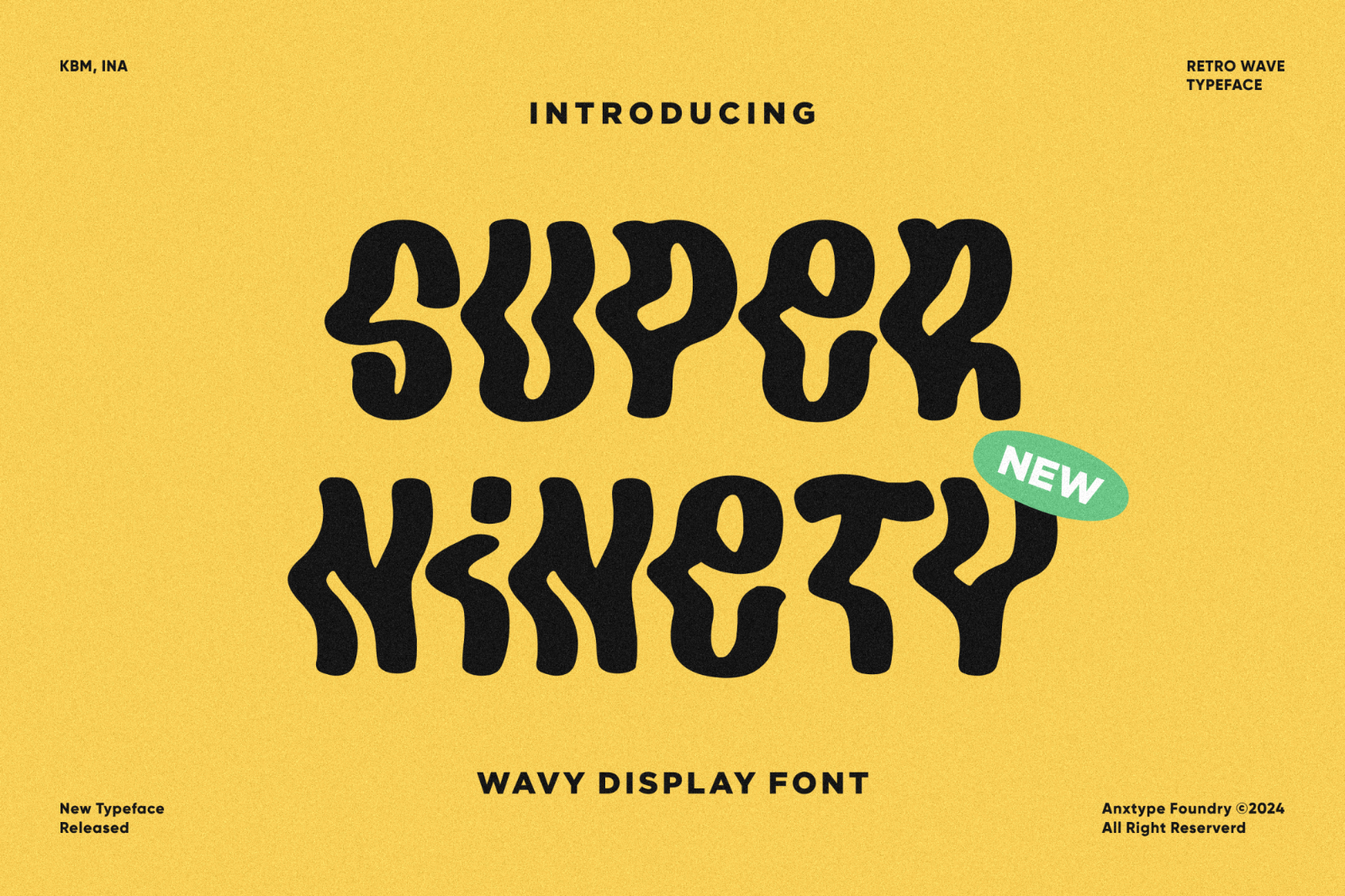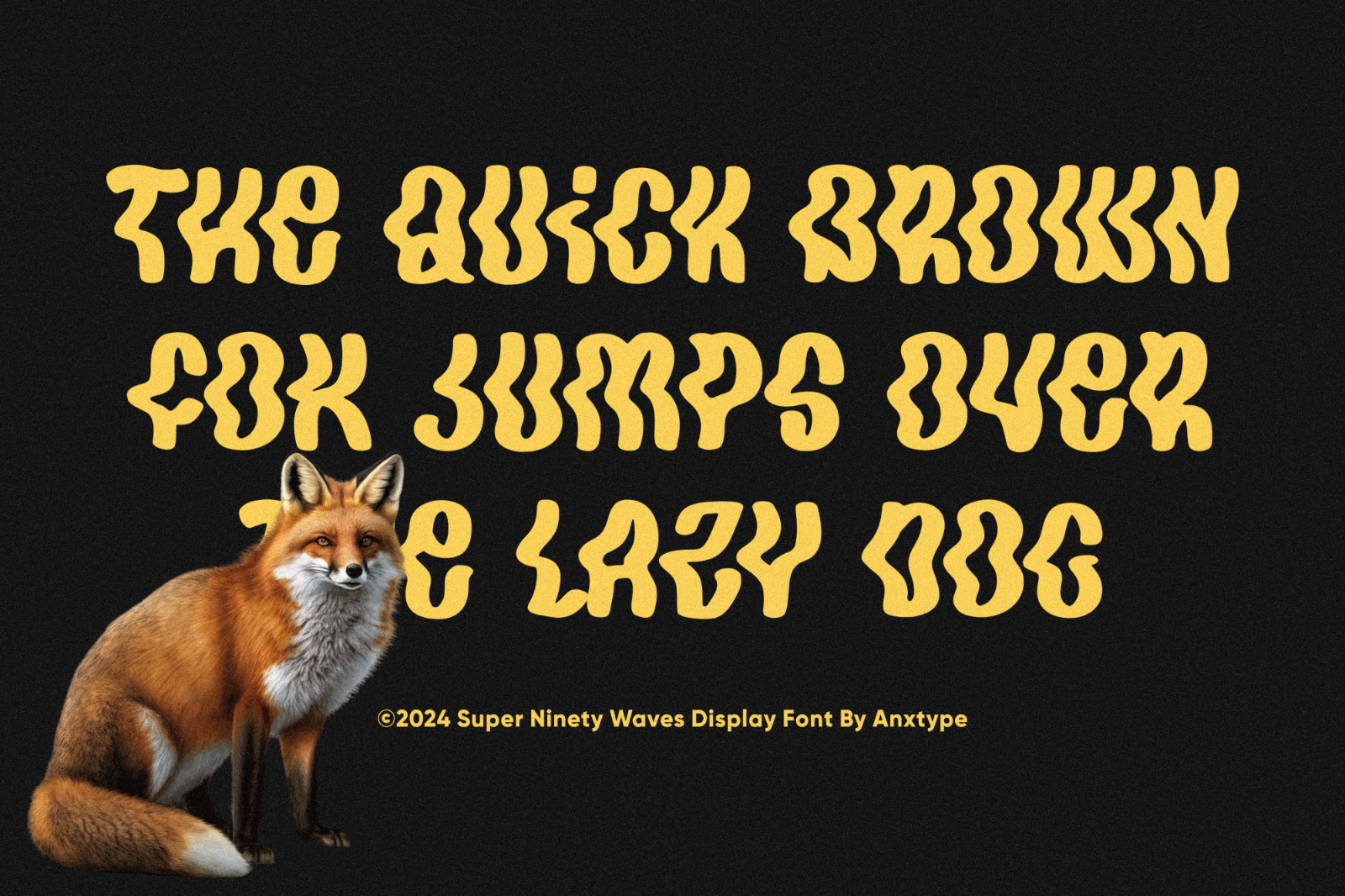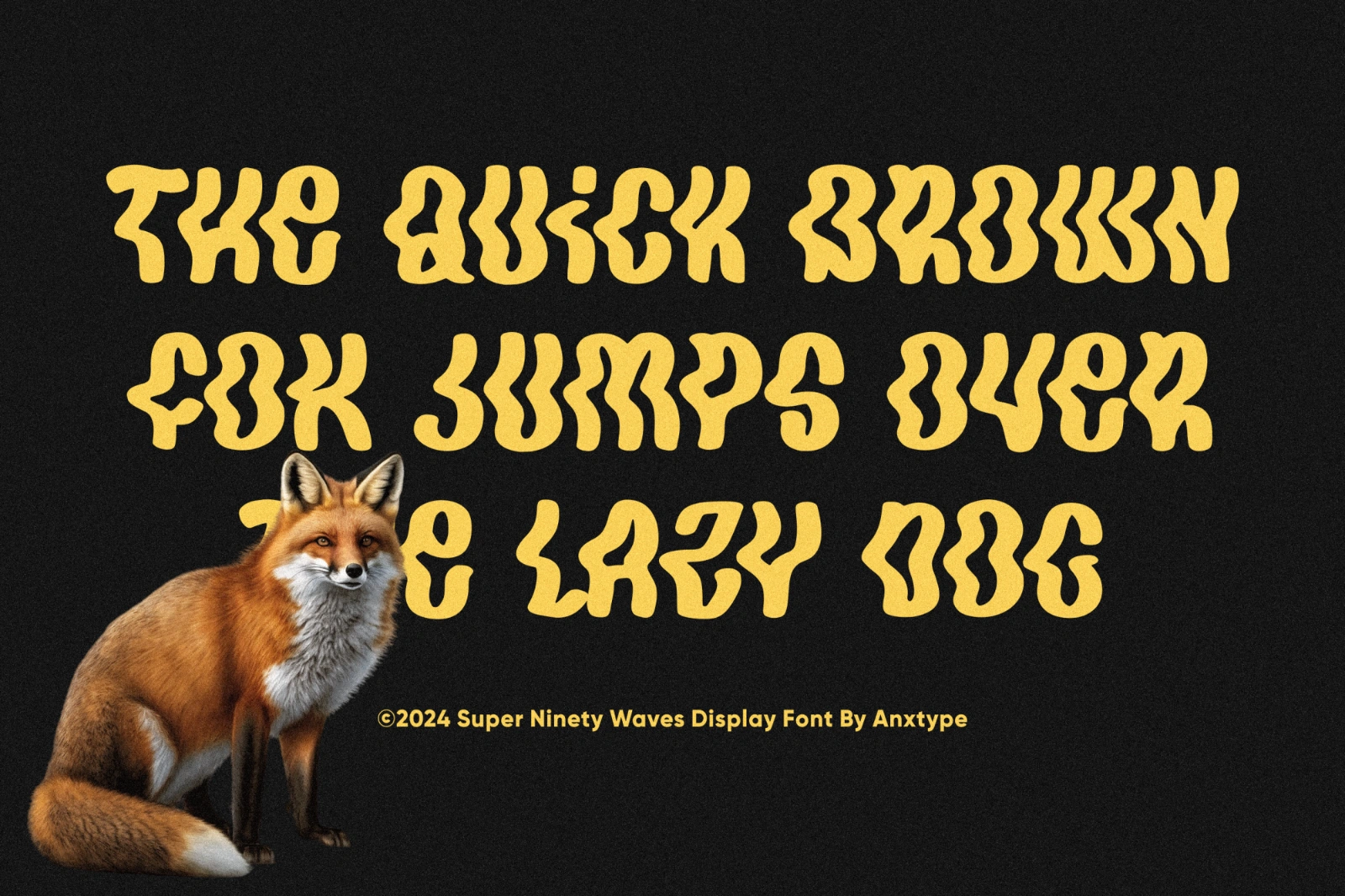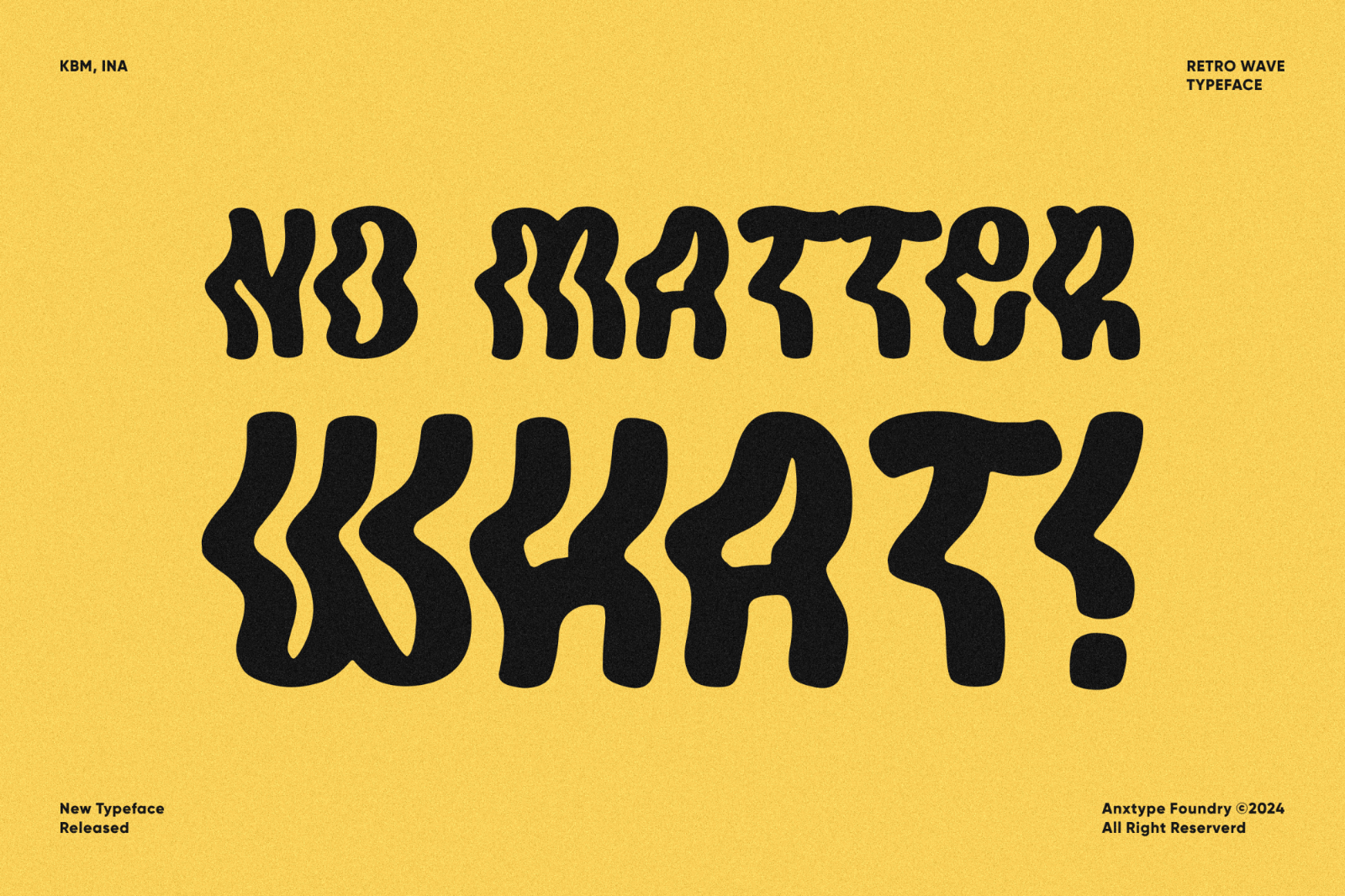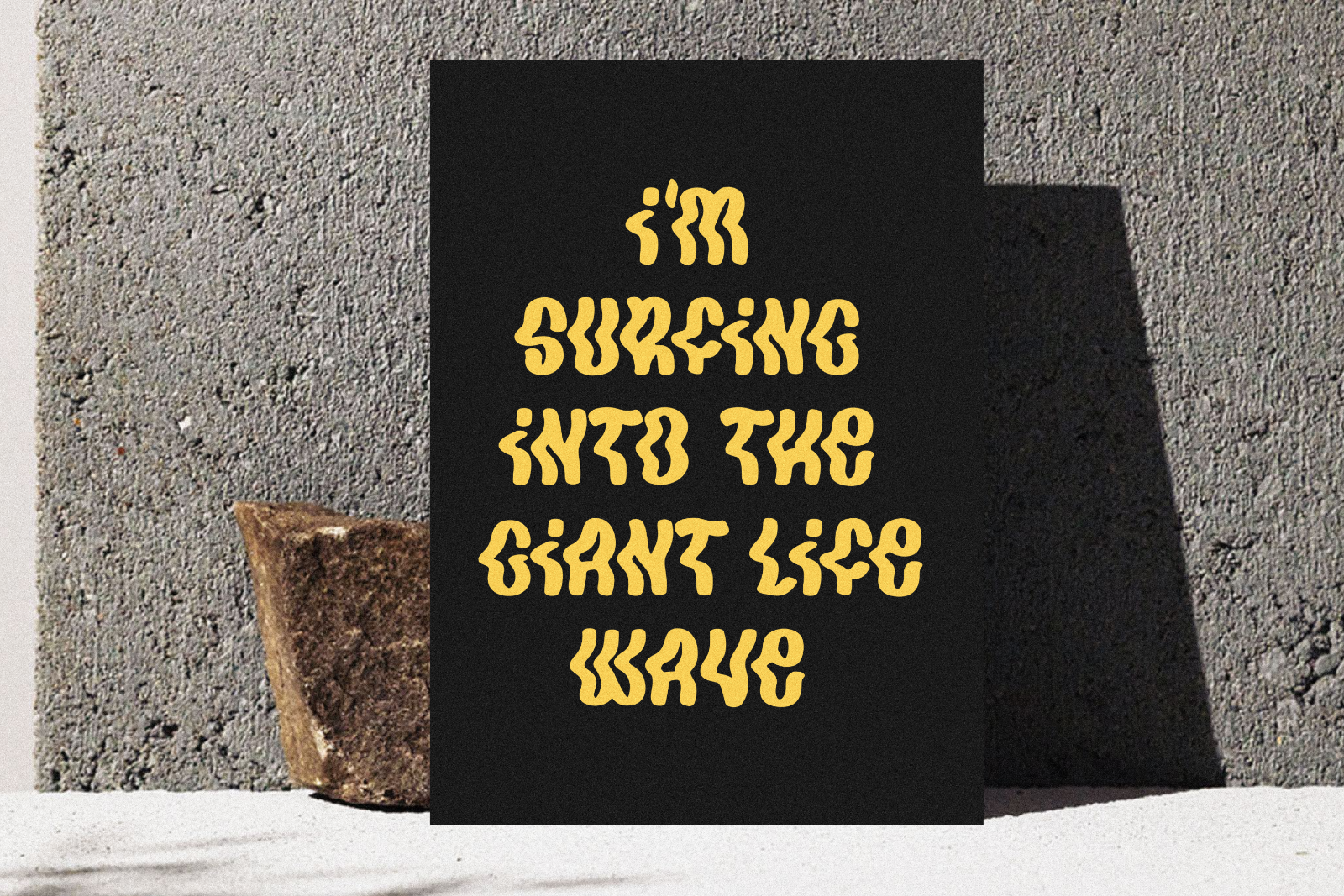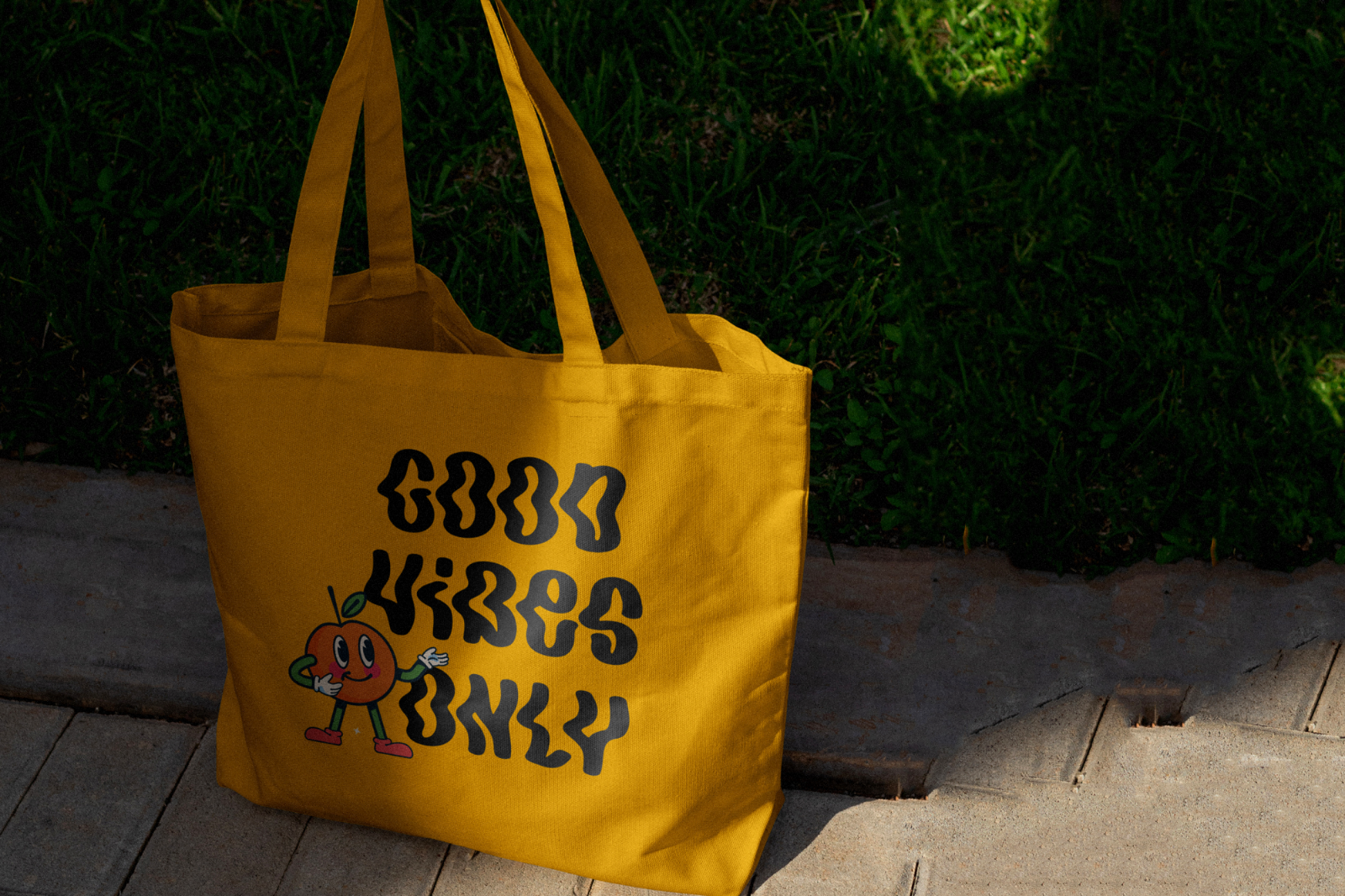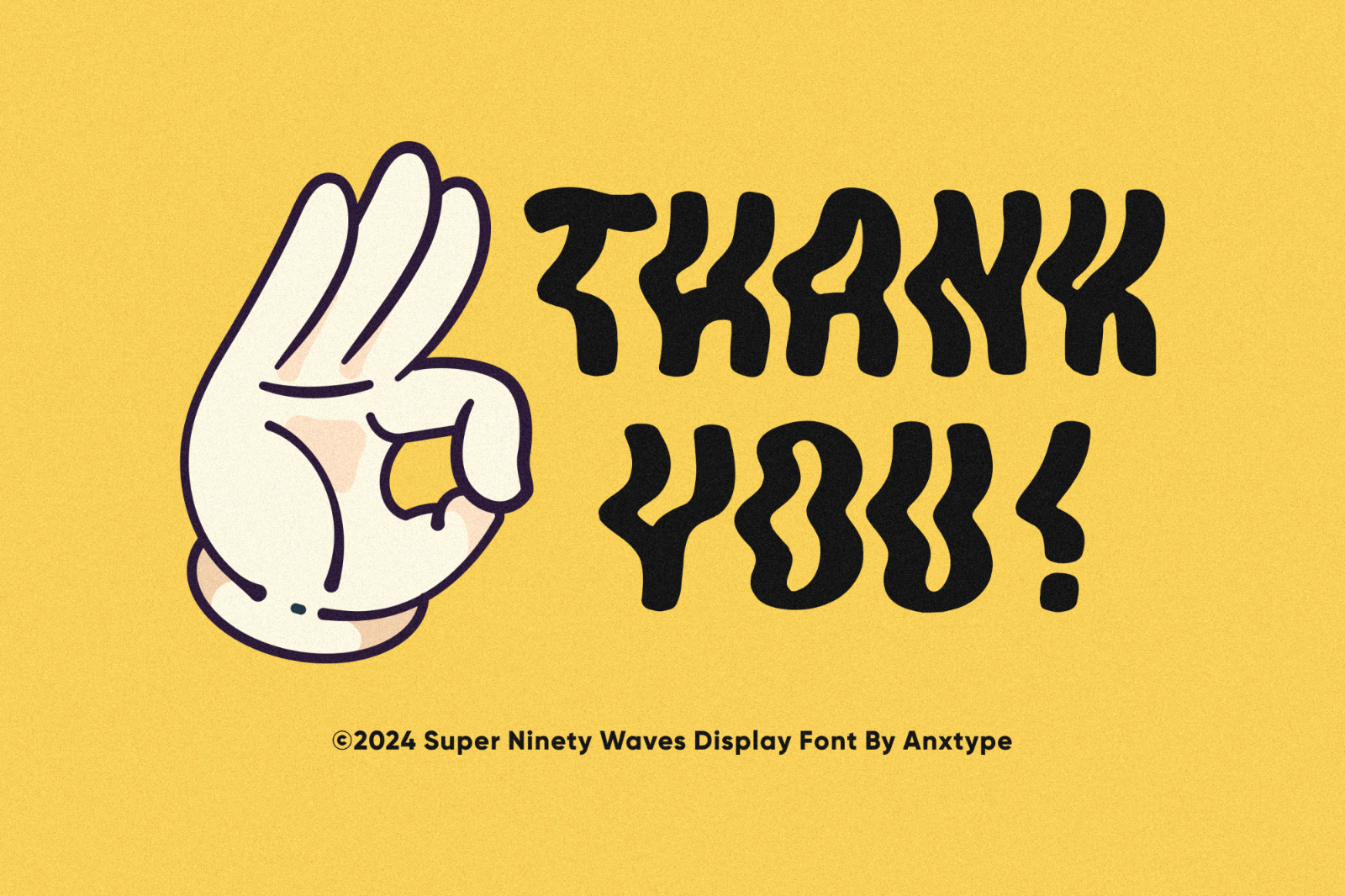
Presenting 'Super Ninety' by Anxietype Foundry - a uniquely distinctive font that pulsates with undulating, groovy waves. Let this creative treasure embellish your branding endeavors or punctuate any design project with its exciting, dynamic energy. Make waves with Super Ninety – the seamless blend of modern chic with vintage charm.